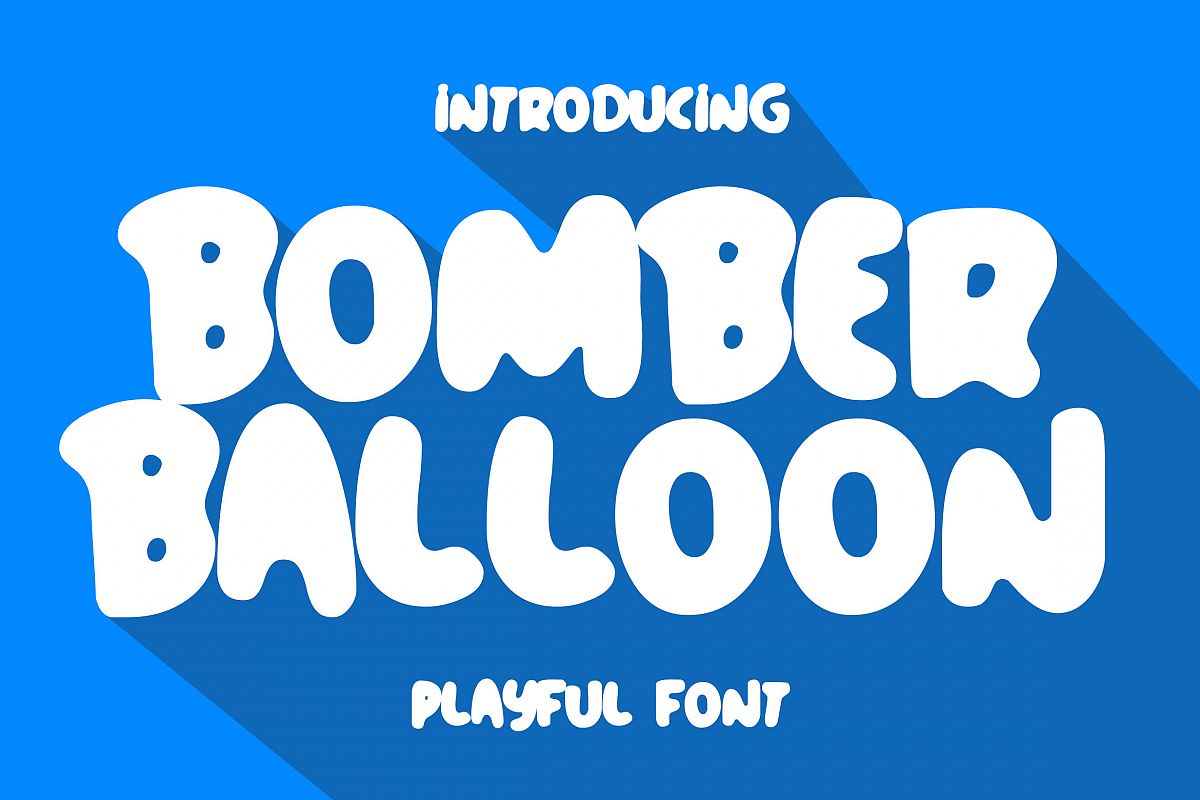
Bomber Balloon
Bomber Balloon is Playful font. This font is perfect for logo, quote, poster, playful lettering, for clothing, or any design projects.